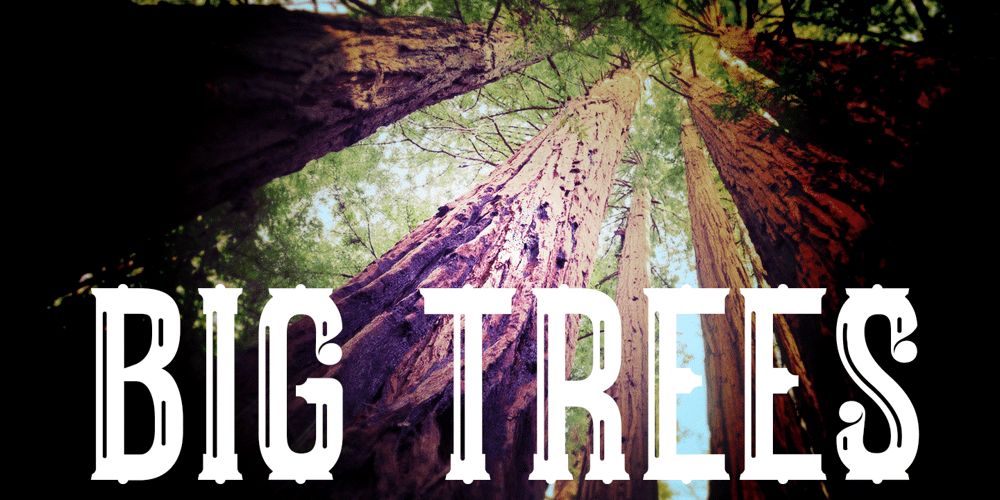
Big Trees Font Family was designed by Kent Swecker and published by A New Machine. Big Trees contains 1 styles and family package options. Inspired by a trip to Sequoia National Park, this bold, all cap font is reminiscent of the great west and wide open spaces. Upper case letters are solid while lower case letters feature shadow lines. Great for titles, branding and logo work.